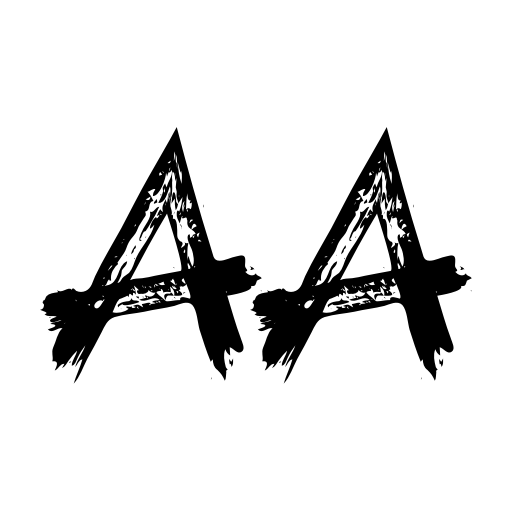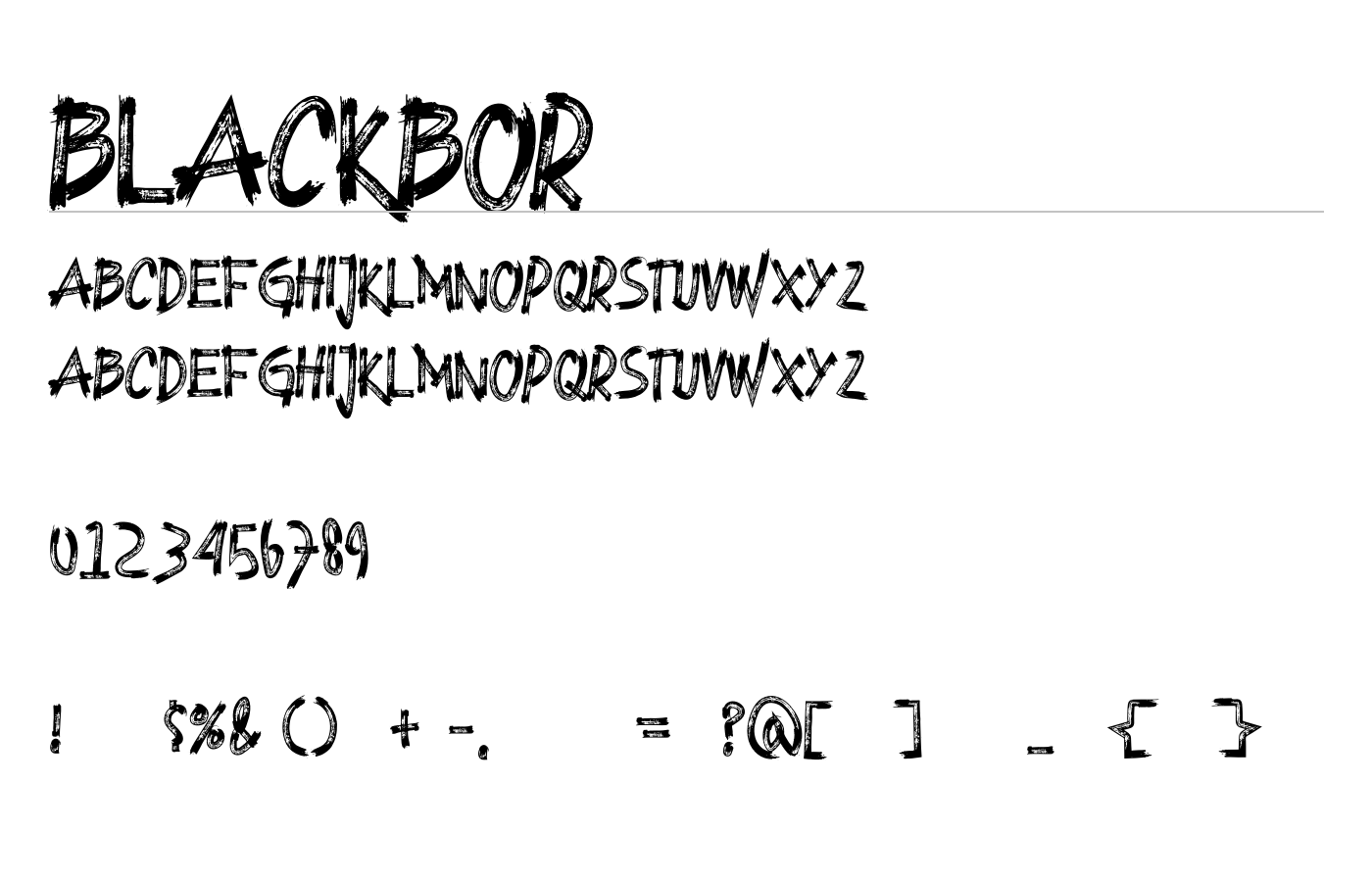
BLACKBOR is a bold, hand-drawn sans serif font with rough, textured strokes that give it a dynamic, edgy look. Its irregular, brush-like letterforms convey a playful yet raw energy, making it ideal for creative designs, posters, and branding that wants a rebellious or informal vibe. This font works well for eye-catching headlines and artistic projects where a handmade, expressive style is desired.
BLACKBOR Font